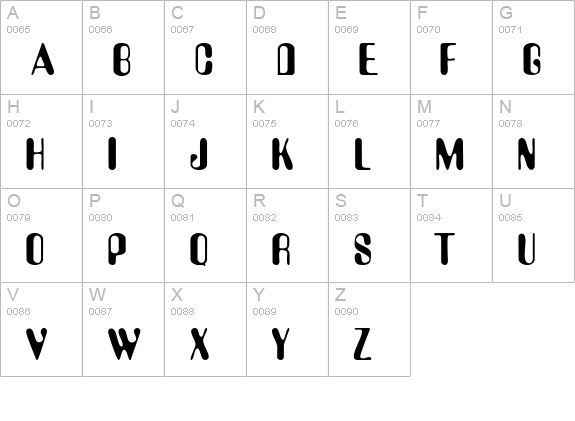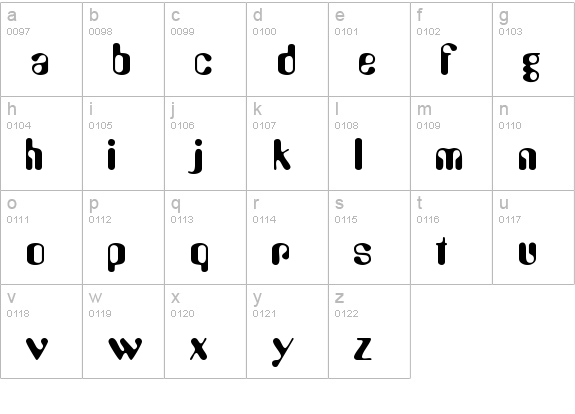
Urkle Font Details
Introducing Urkle, a captivating and versatile font that will instantly elevate your design projects to new heights. With its modern and stylish aesthetic, Urkle is perfect for a wide range of applications, from logos and branding to headlines and advertisements. This font exudes a sense of refined elegance, with its clean lines, beautifully balanced proportions, and subtle curves. It strikes the perfect balance between being eye-catching and effortlessly legible, making it a fantastic choice for both print and digital media. What sets Urkle apart is not just its impeccable design, but also the fact that it is free to download at FontsMarket.com. Yes, you read that right - this stunning font can be yours without spending a dime. Now you can bring a touch of sophistication to your projects without breaking the bank. Whether you're a professional designer looking for a reliable font to add to your collection, or a novice experimenting with typography, Urkle is sure to impress. Its versatility allows it to seamlessly adapt to various design styles, giving you the freedom to explore endless possibilities. With Urkle, you can create captivating headlines that effortlessly grab attention, elegant invitations that leave a lasting impression, or striking logos that make a statement. Its timeless appeal ensures that your designs will remain relevant and visually stunning for years to come. So why wait? Download Urkle today from FontsMarket.com and unlock the potential to create truly remarkable designs. Whether you're working on a personal project or a client's brief, this font will be your trusted companion, helping you achieve exceptional results every time. Don't miss out on this incredible opportunity to enhance your design arsenal with a font that combines beauty, versatility, and the best part - it's free!